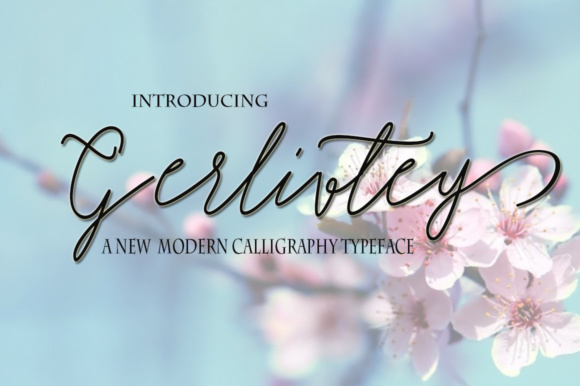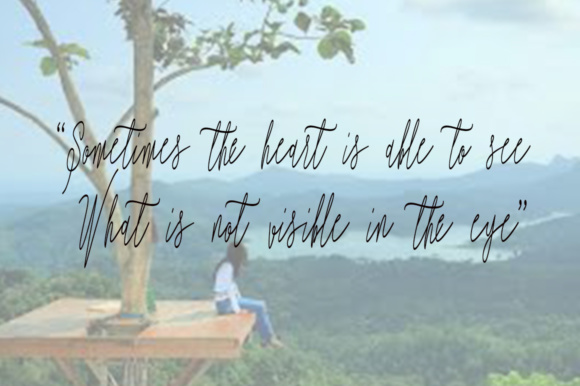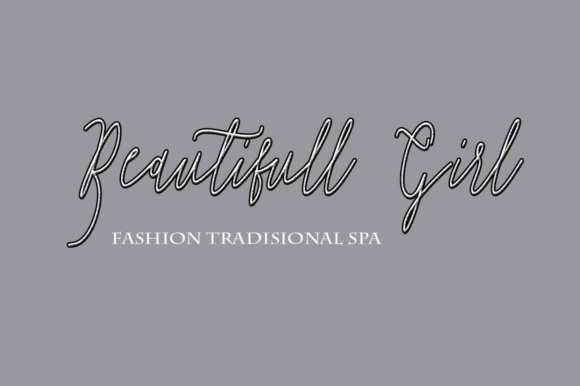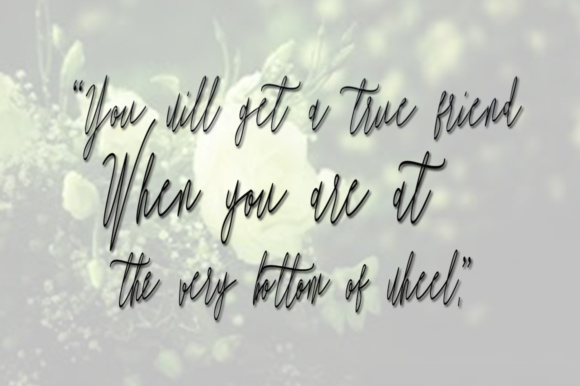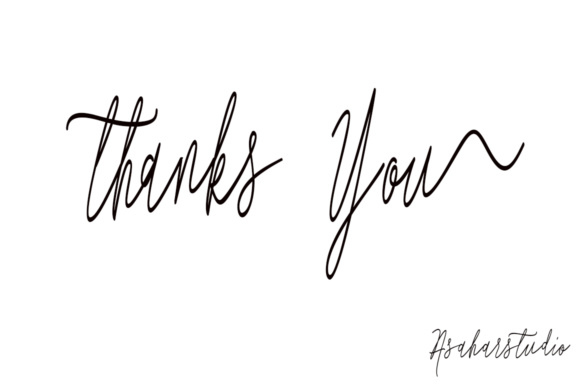
Gerlivtey Font
About Gerlivtey Font
Gerlivtey is a lovely modern calligraphy typeface, which is combining the style of classic calligraphy with a modern style. It has a dancing baseline which will give your design a modern and elegant touch.